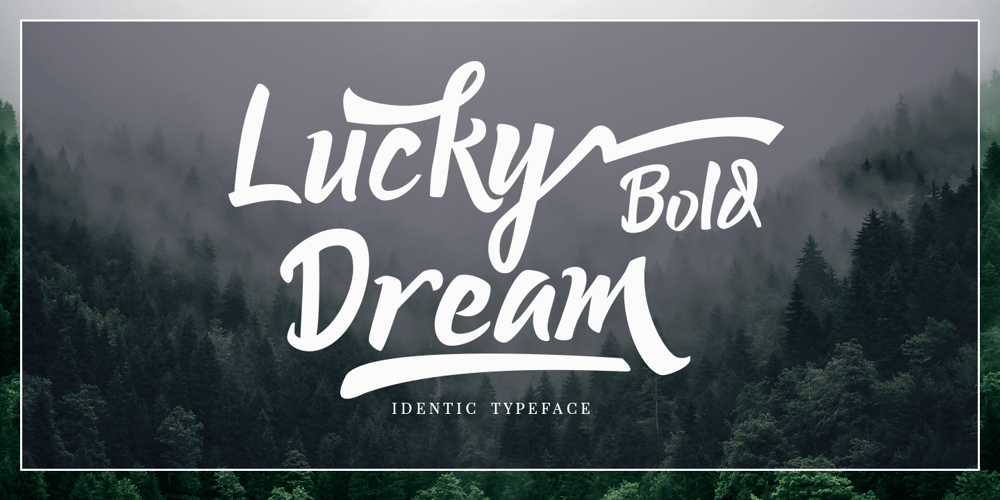
Lucky Dream Font Family was designed by Putra Khan and published by Mindtype Co.. Lucky Dream contains 3 styles and family package options. Lucky Dream is a handmade font bold, new fresh & modern script with a calligraphy style. Lucky Dream can used for anything from promotional material and handwritten quotes, to product packaging, signage, labels, newsletters, posters, merchandise and branding projects.